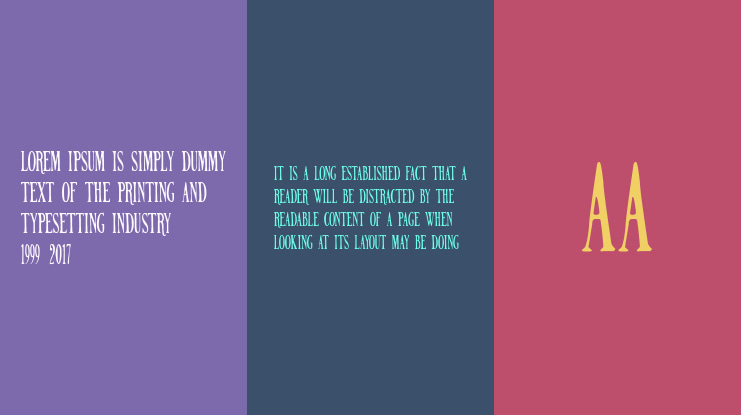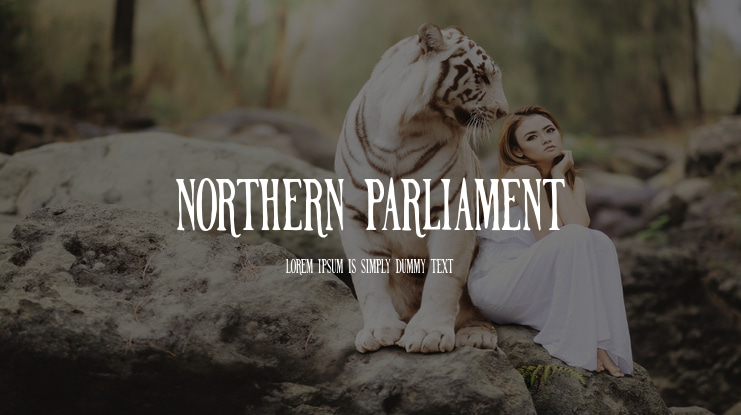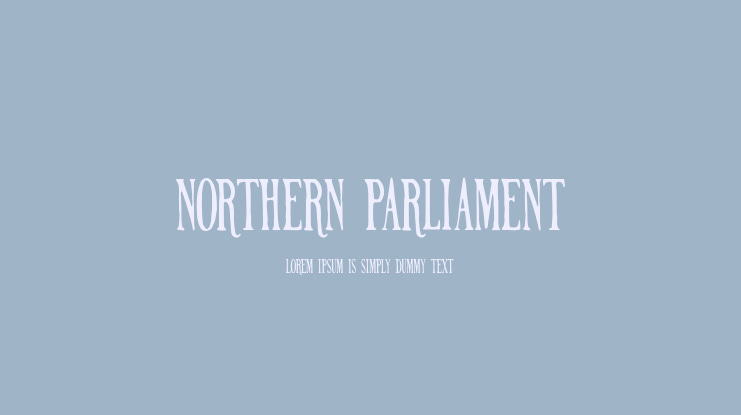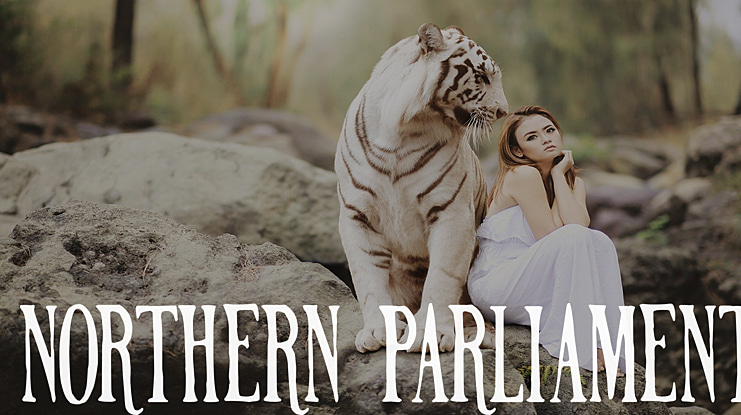
NORTHERN PARLIAMENT Font
Revival: A Font Collection are vectorized freehand drawn fonts that are inspired from antique times; with "loose-line", signature effect of vintage designs- it gives subtle look like an old print. This effect is made through freehand drawing to have persistent loose details to every stroke. Check this collection now. You might get back in time reminiscing your good old days! Enjoy and be Revive.
The NORTHERN PARLIAMENT comes in uppercase letters and numbers. Believe that you can be old soul in this modern world. Be poetic in digital or in prints with these fonts. Purchase it here https://creativemarket.com/EliShoreProductions